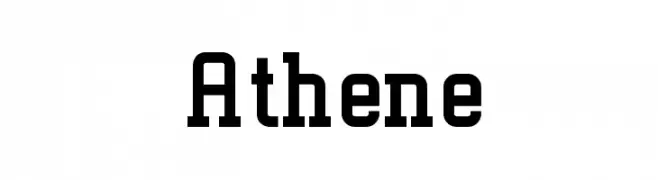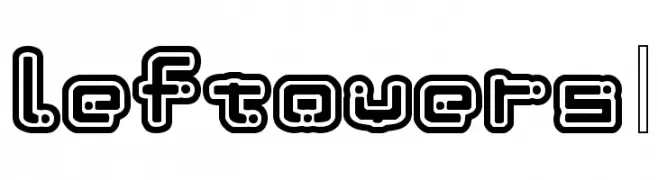
An elegant, decorative script font with intricate, swirling strokes.
A romantic, heart-themed font with handwritten characters inside heart shapes.
Ornamental border and flourish collection with vintage, decorative style.
A bold, geometric slab serif font with a modern yet classic appeal.
A whimsical, decorative font with charming swirls and curls.
A grunge-inspired font with dripping, chaotic strokes for a rebellious look.
A decorative icon font with bold stars and Japanese-themed illustrations.
A bold, outlined font with a modern, tech-inspired aesthetic.
A bold, distressed font with a gritty, urban aesthetic.